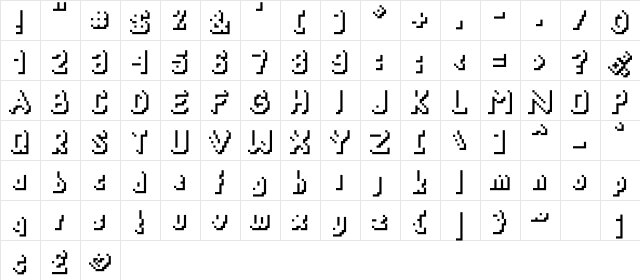
SmackyFormulaSha Medium
Design Context for SmackyFormulaSha Typeface
SmackyFormulaSha takes a measured approach to typography — its balanced proportions and neutral character make it a reliable workhorse for both digital and print work.